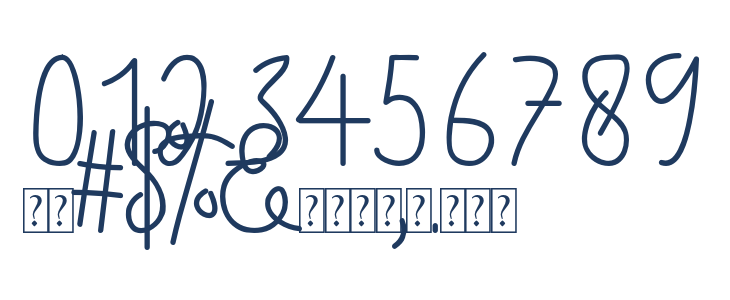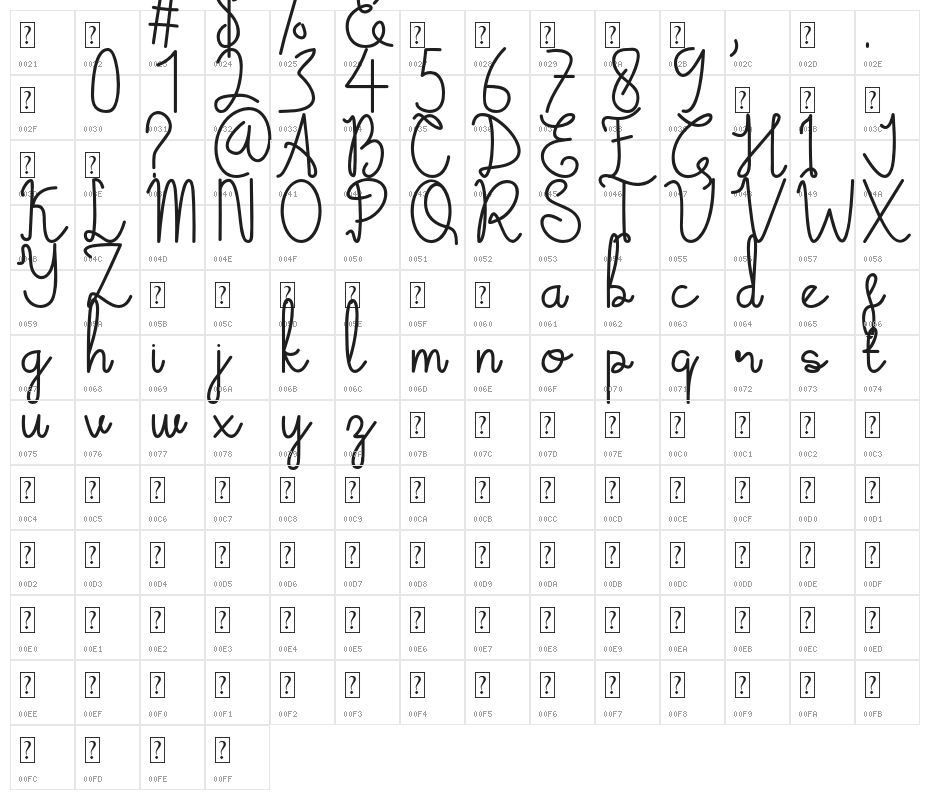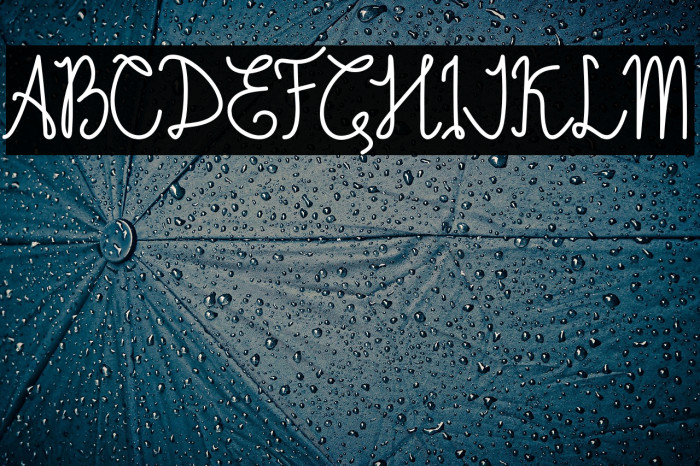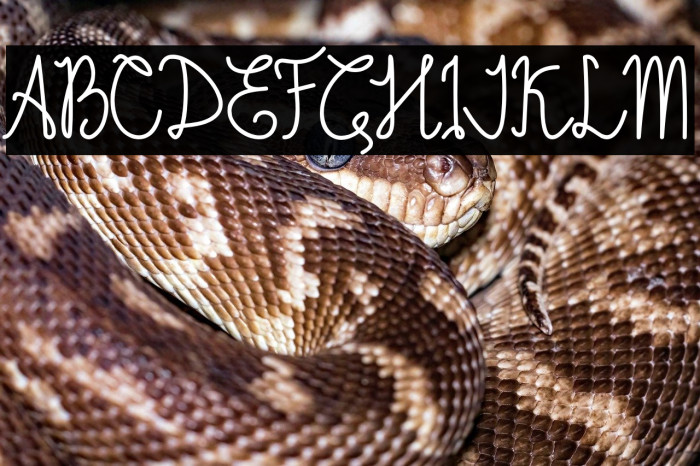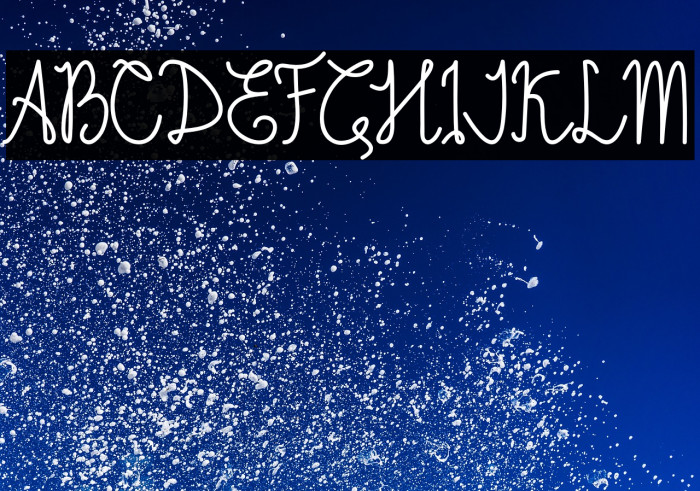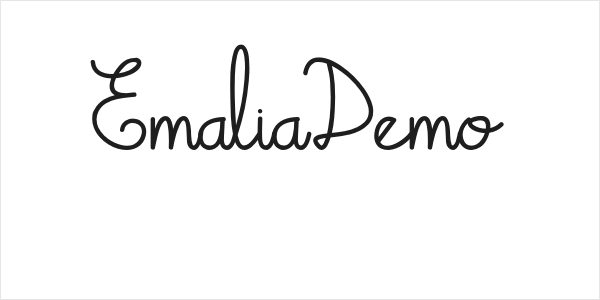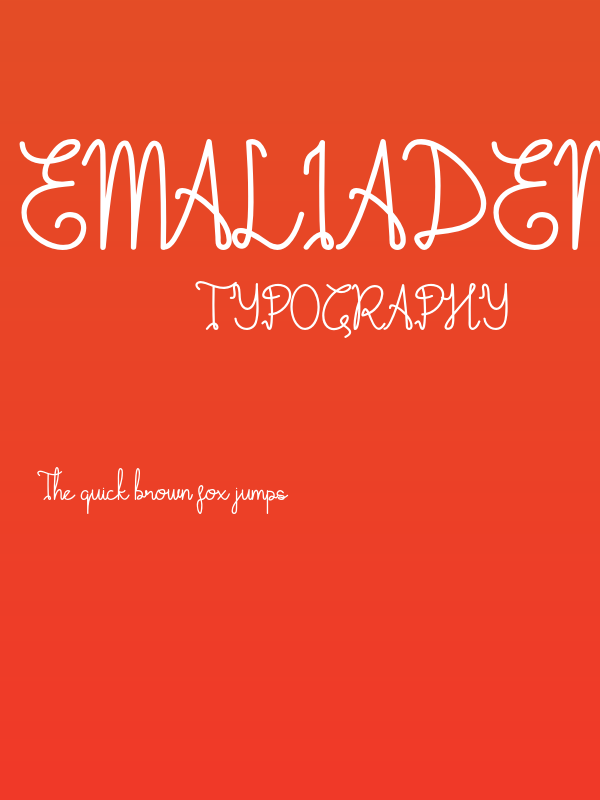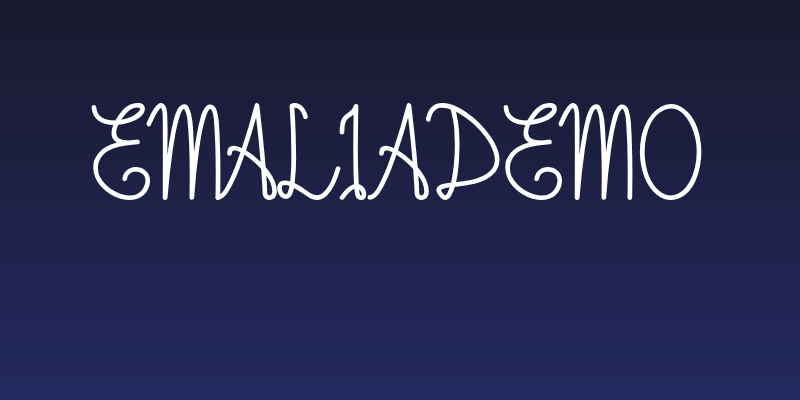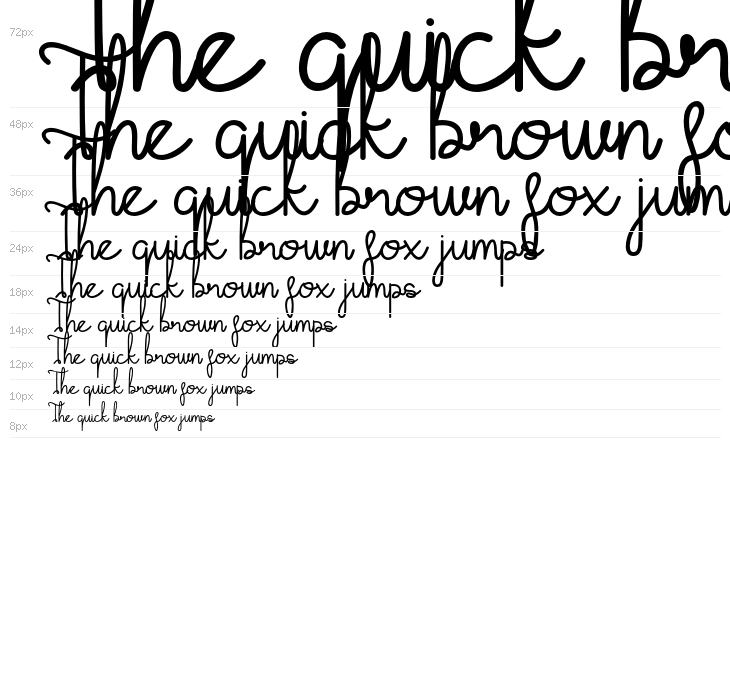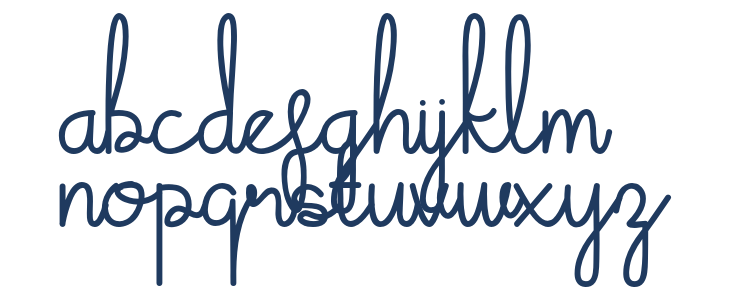
EmaliaDemo Font
EmaliaDemo Description
This font features a playful and whimsical design, characterized by its curly and looping strokes. The uppercase letters are tall and slender, with unique flourishes that add a touch of elegance and creativity. The lowercase letters maintain a consistent style, with smooth curves and a slightly informal appearance. Numbers are designed with the same playful flair, making them stand out with their distinctive shapes. Special characters are bold and expressive, adding to the overall dynamic feel of the font. This typeface is perfect for projects that require a fun and lively touch, while still maintaining readability.
| Proposed Projects | Ideal for children's books, creative invitations, playful branding, and artistic posters. |